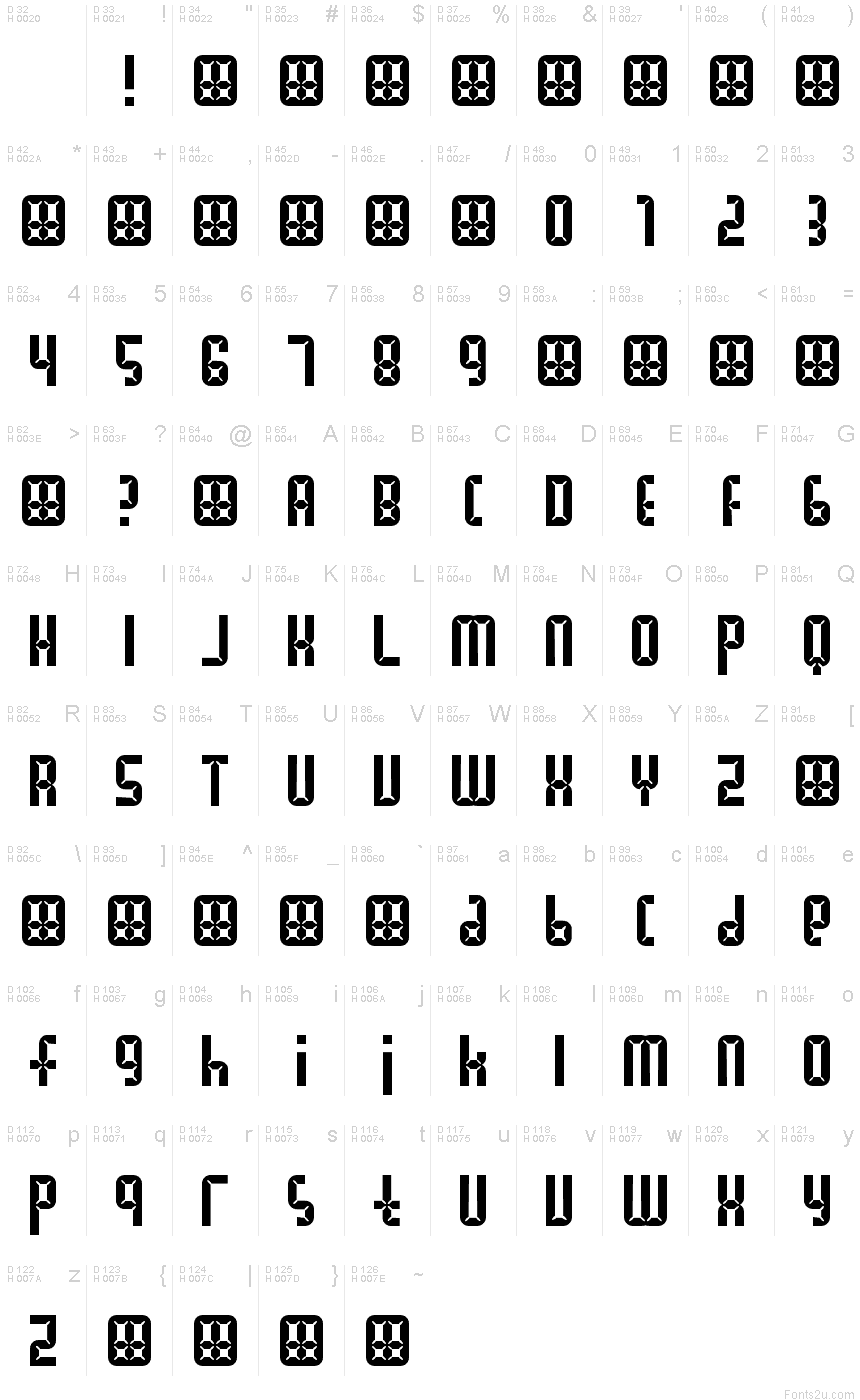
Xefus
Xefus is a free rounded digital display font with the chunky pulse of old LED clocks and arcade counters. The letters are built from broad, monoline segments, but the clipped corners and soft inward notches keep it from feeling cold, giving the font a slightly toy-like retro-future rhythm.
It fits naturally in game logos, synthwave posters, tech flyers, title cards, and short packaging headlines where a free font with a screen-born look can do the talking fast. Use it when you want brief words, cover lines, or interface-inspired branding to feel playful and electronic without slipping into a hard industrial style.